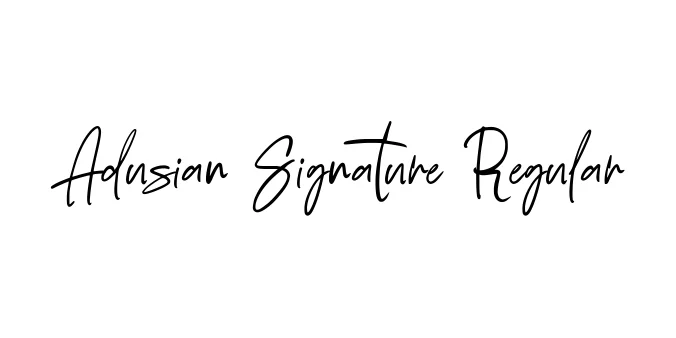
Adusian Signature Regular
Designed by Garisman Studio
Adusian Signature Regular is a sophisticated and elegant script font designed to mimic natural, fluid handwriting. Created by Garisman Studio, this typeface features elongated strokes and graceful ligatures that give it an authentic, personalized feel. Its light weight and slanted posture make it ideal for high-end branding projects that require a touch of luxury and human connection.
The font is particularly effective for digital signatures, wedding invitations, and fashion-related designs. Its clean lines ensure readability even at smaller sizes, while the decorative flourishes allow it to stand out in large display headings. Whether used for logo design or social media quotes, Adusian Signature Regular adds a layer of professional craftsmanship and style to any creative work.
Adusian Signature Regular Best Uses
Creating sophisticated logos and professional brand identities.
Adding stylish watermarks and personal signatures to images.
Designing aesthetic quotes, stories, and stylish captions.
Perfect for high-end wedding invites, cards, and formal letters.